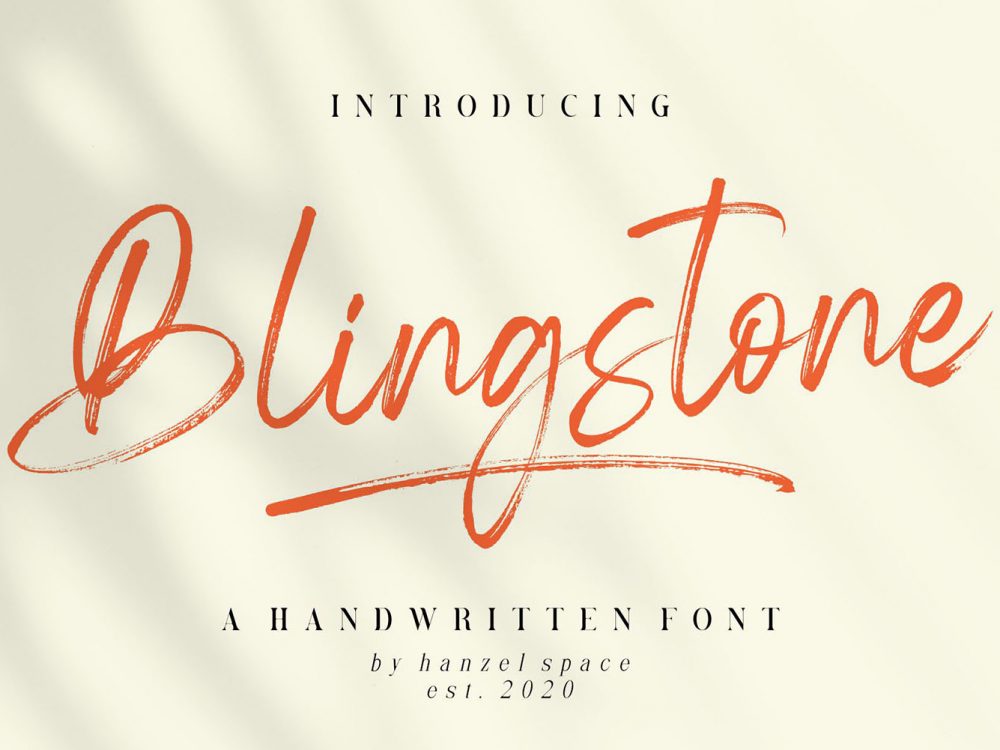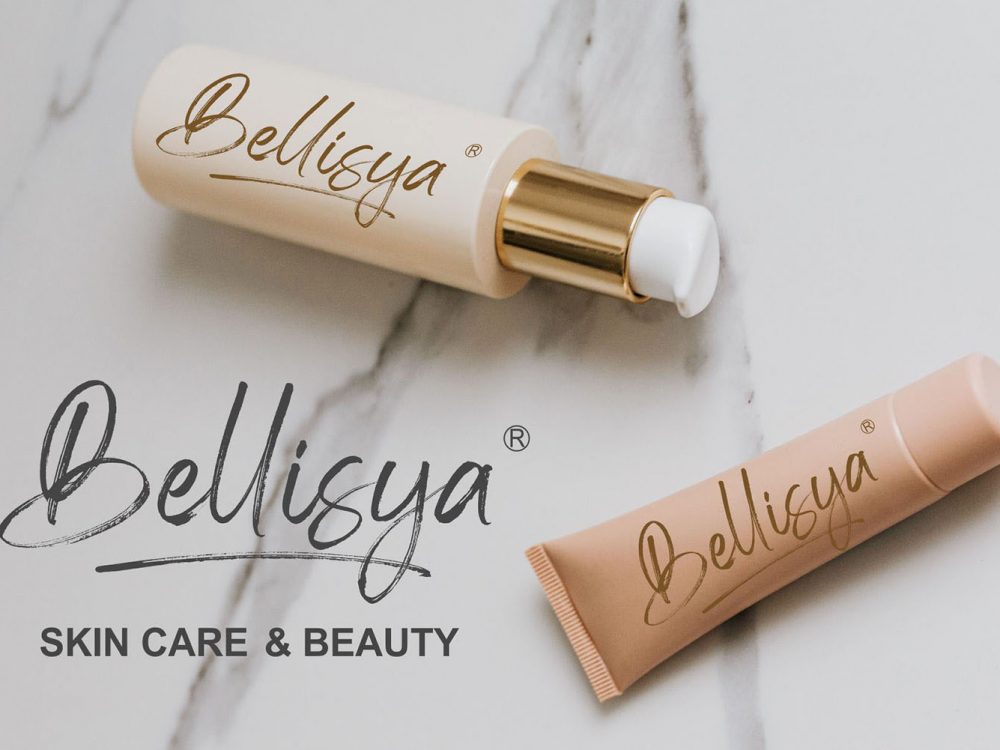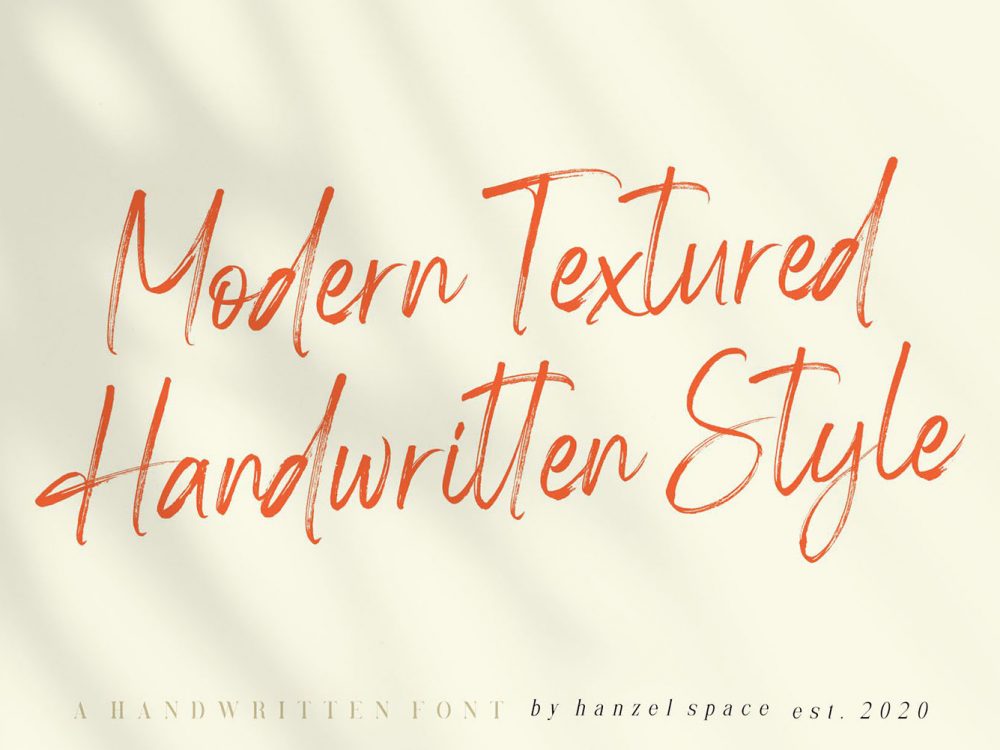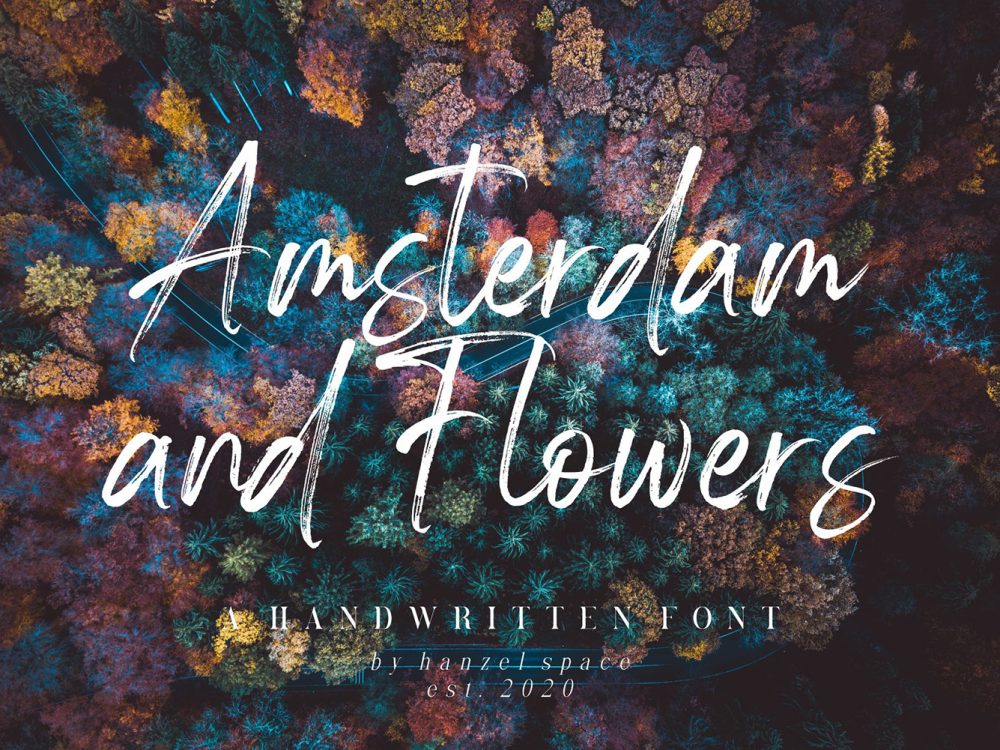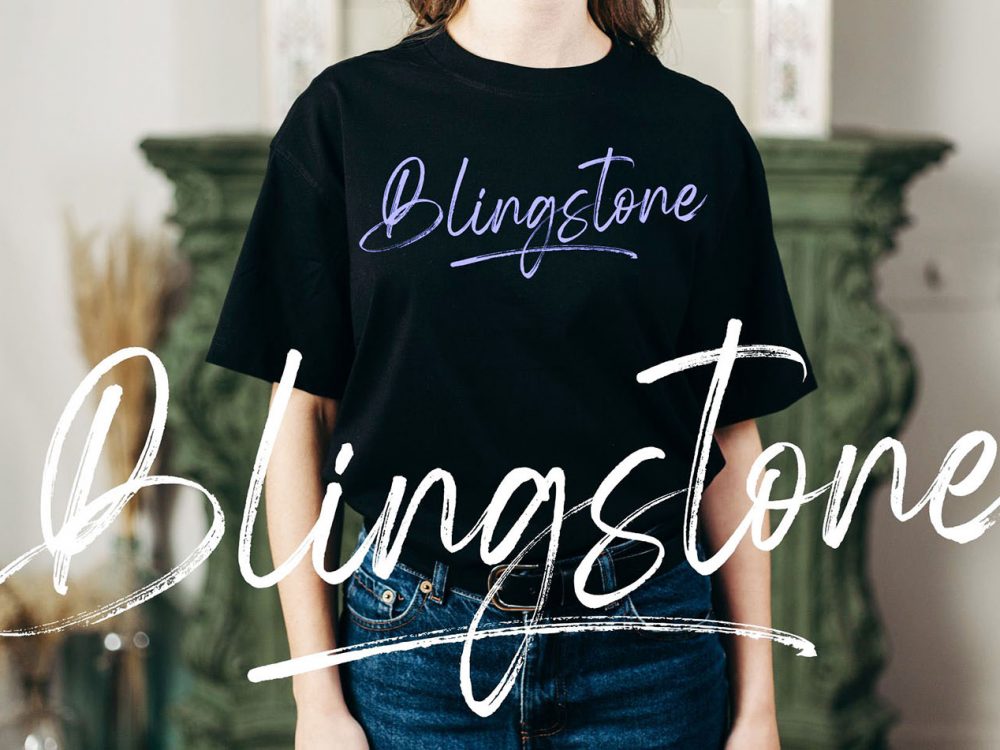
Blingstone Free Font
Blingstone Free Font is a scripted high-quality handwritten font that simulates writing with a brush. This font features an elegant style. This font is very suitable for creating various design projects that require a modern scripting font. You can use this font to create memorable posters, wedding invitations, cards, branding, flyers, and more. If you like it don’t forget to check out the full version.